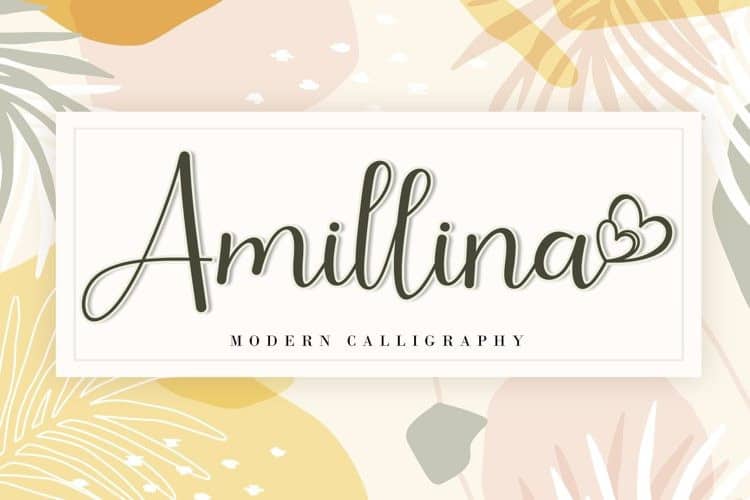
Amillina Calligraphy Font Free
Amillina Calligraphy Font is an exquisite handwritten Typeface, masterfully designed to become a true favorite. It maintains its classy calligraphic influences while feeling contemporary and fresh. It has beautiful and well balanced characters and as a result, it matches a wide pool of designs. Add it to your most creative ideas and notice how it makes them come alive! This font is PUA encoded which means you can access all of the glyphs and swashes with ease!